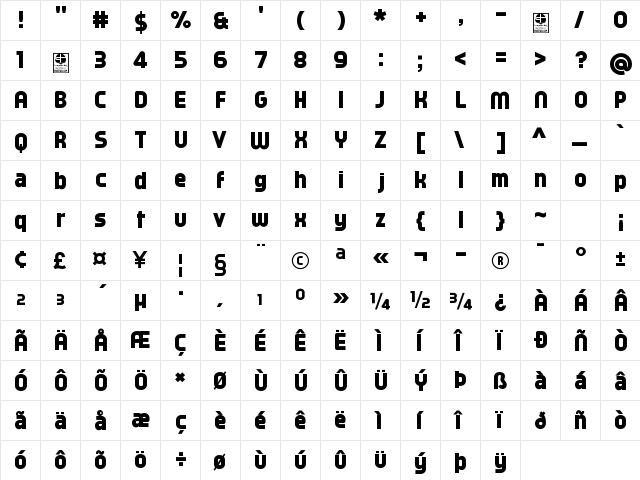
Typo Oval Black Demo Regular
| Foundry | StudioTypo |
| Designer | Mehmet Abac |
Design Context for Typo Oval Black Demo Typeface
Typo Oval Black Demo offers clean, dependable letterforms without strong stylistic allegiance, making it a practical choice for designers who need flexibility.